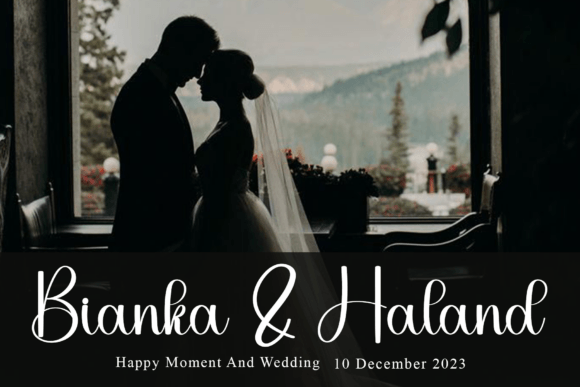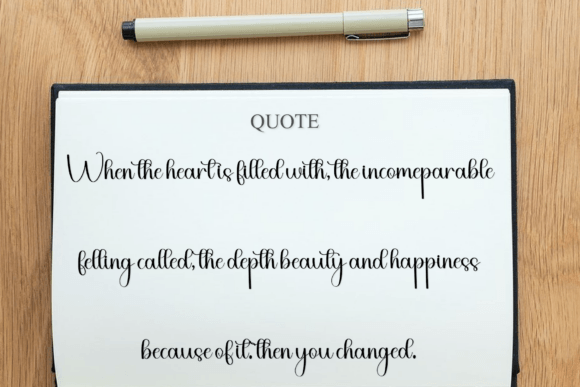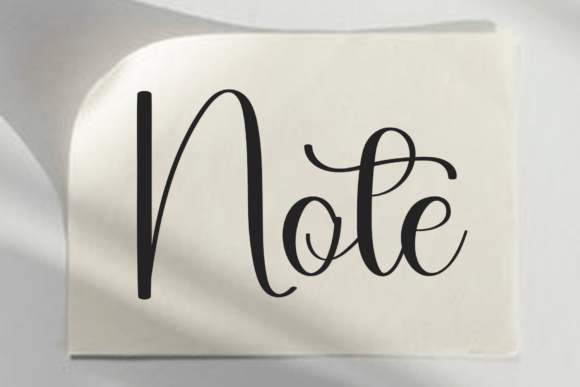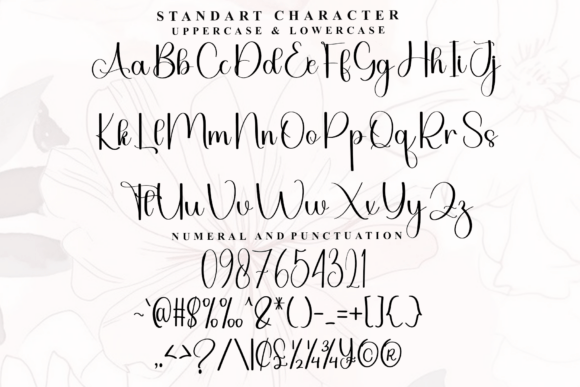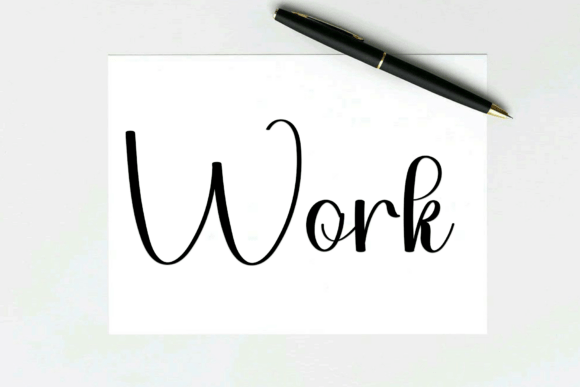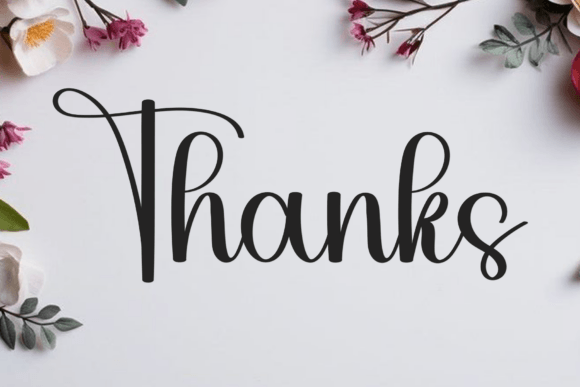
Introducing Handbag Font: Elevate Your Designs with Elegance and Charm
In the world of typography, few fonts manage to capture the essence of elegance and charm as effortlessly as the Handbag Font. This stylish handwritten script font is a game-changer for designers and crafters looking to add a touch of sophistication to their projects. With its fluid, graceful strokes, Handbag Font is perfect for a wide range of applications, from branding and invitations to stationery and more.
The Characteristics of Handbag Font
So, what makes Handbag Font so special? Here are a few key characteristics that set it apart:
• Fluid, Graceful Strokes: The fluid strokes of Handbag Font give it a natural, handwritten feel that’s both elegant and charming.
• Smooth Curves: The smooth curves of this font create a refined, sophisticated look that’s perfect for high-end designs.
• Natural Flow: The natural flow of the font makes it easy to read and adds to its overall elegance.
• Timeless Appeal: Unlike trendy fonts that quickly go out of style, Handbag Font has a timeless appeal that will keep your designs looking great for years to come.
Perfect for Branding, Invitations, and Stationery
Handbag Font is incredibly versatile, making it perfect for a wide range of design applications. Here are a few ideas to get you started:
• Branding: Use Handbag Font to create a sophisticated brand identity that sets your business apart from the competition.
• Invitations: Add a touch of elegance to your invitations with Handbag Font, perfect for weddings, baby showers, and other special occasions.
• Stationery: Elevate your stationery designs with Handbag Font, creating a refined and sophisticated look that’s perfect for personal or business use.
Why Designers and Crafters Love Handbag Font
Designers and crafters alike are drawn to Handbag Font for a variety of reasons. Here are a few:
• Ease of Use: Handbag Font is incredibly easy to use, even for those with limited design experience.
• Customization: The font is highly customizable, allowing you to adjust the size, color, and style to fit your design needs.
• Unique Look: Handbag Font offers a unique look that’s sure to make your designs stand out from the crowd.
Tips for Using Handbag Font
To get the most out of Handbag Font, here are a few tips to keep in mind:
• Pair with Bold Fonts: Pair Handbag Font with bold, sans-serif fonts for a striking contrast that adds visual interest.
• Use for Headlines: Use Handbag Font for headlines and titles to add a touch of elegance and sophistication.
• Experiment with Colors: Experiment with different colors and textures to add depth and visual interest to your designs.
In conclusion, Handbag Font is a stylish and elegant handwritten script font that’s perfect for designers and crafters looking to add a touch of sophistication to their projects. With its fluid, graceful strokes, smooth curves, and natural flow, this font is sure to elevate your designs and make them stand out from the crowd. Whether you’re working on branding, invitations, stationery, or more, Handbag Font is a versatile and timeless choice that’s sure to impress.